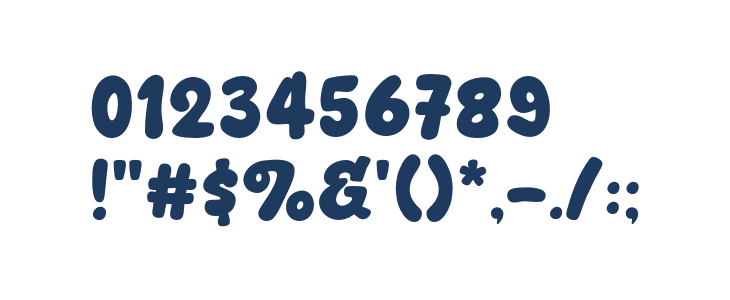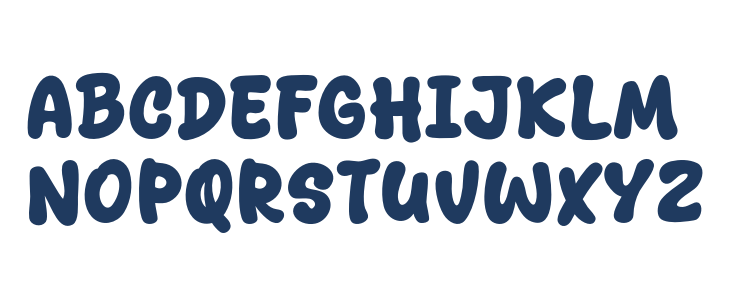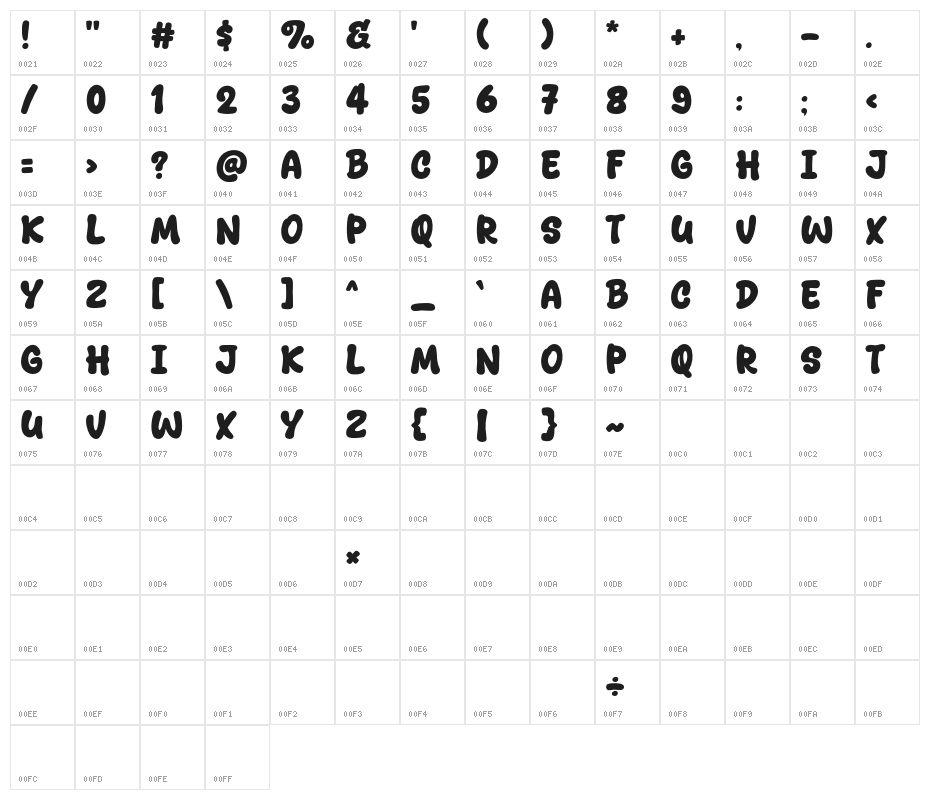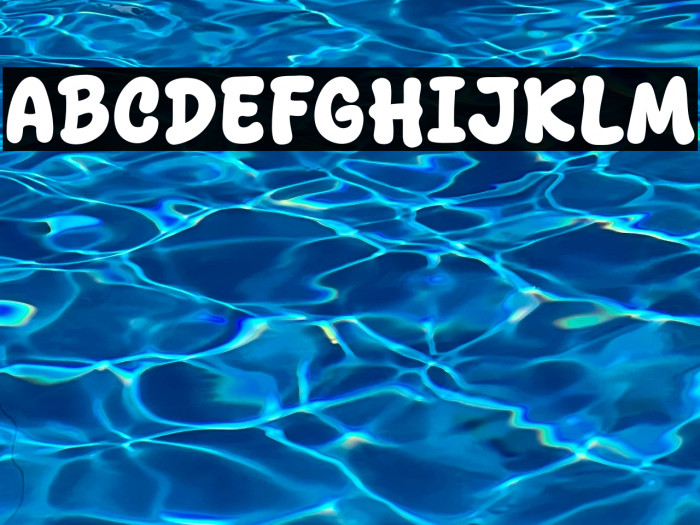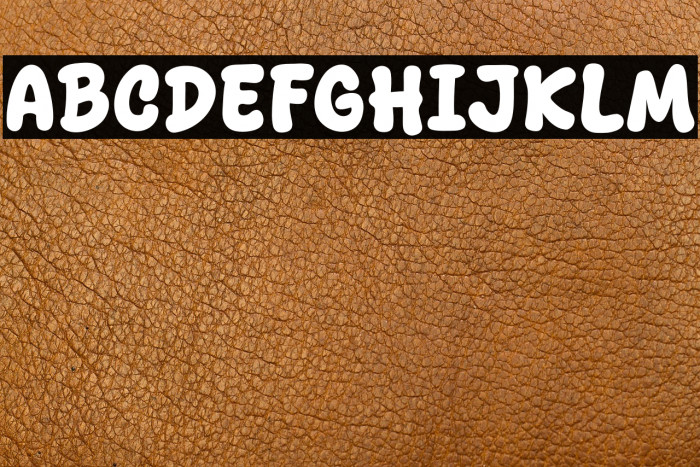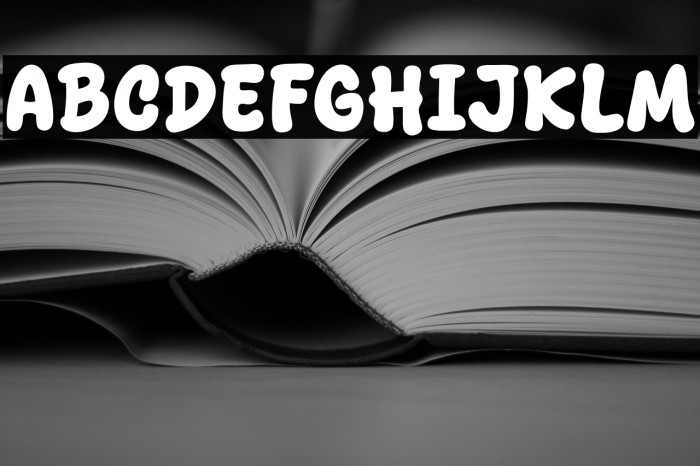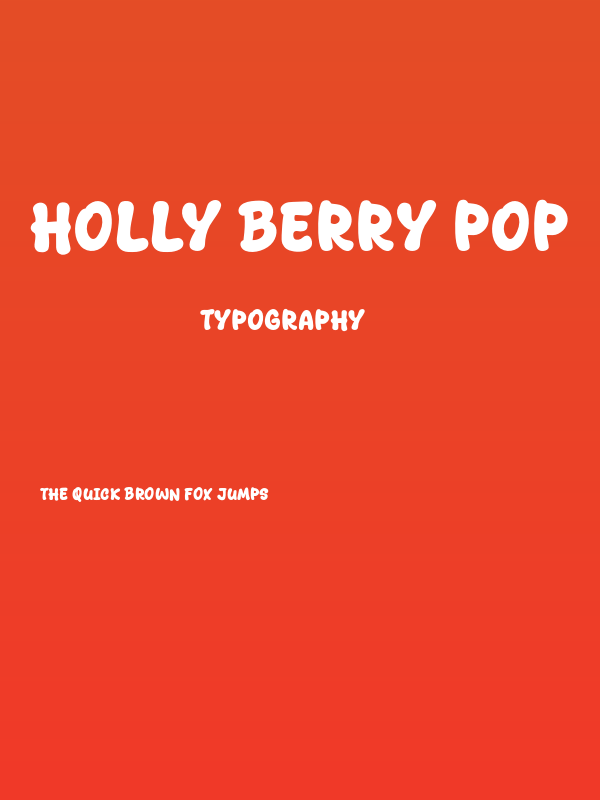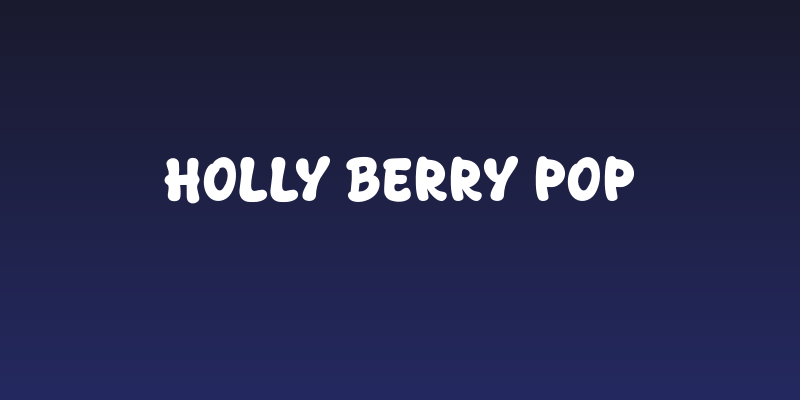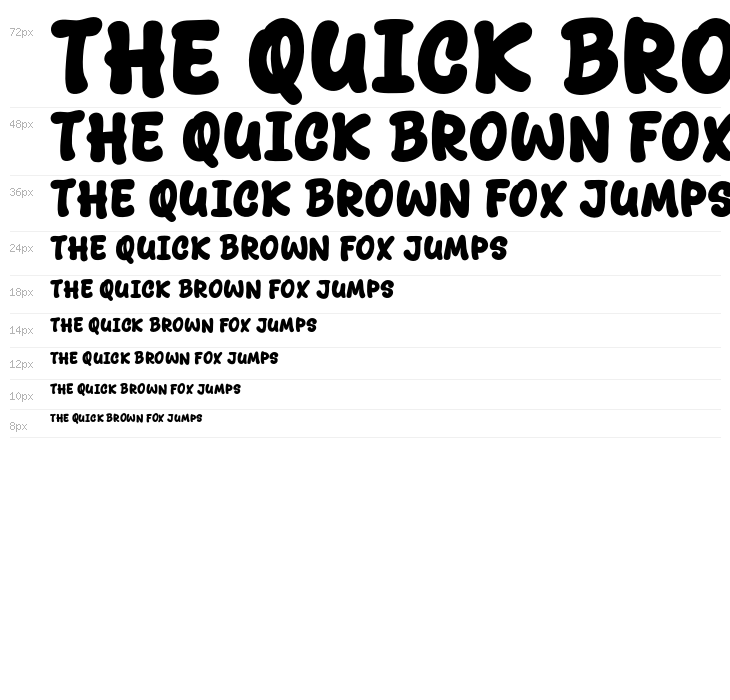
Holly Berry Pop Font
Holly Berry Pop Description
A bold, rounded, playful sans-serif font with thick strokes and slightly irregular shapes, giving it a hand-drawn, bubbly appearance. The characters are uniformly thick with soft edges and a casual, friendly style.
| Overall Style | Playful, Casual, Friendly |
| Use Case | Headlines, Logos, Display text |
| Proposed Projects | Children's books, party invitations, casual branding, posters, and playful logos. |